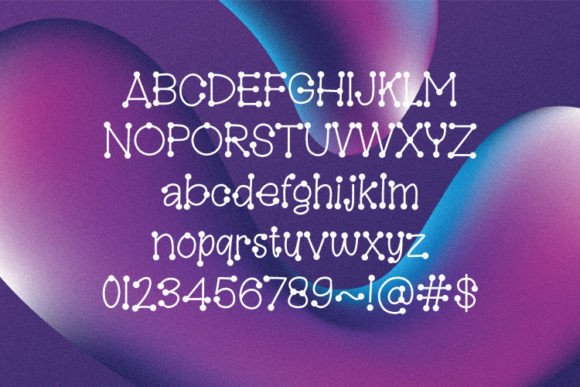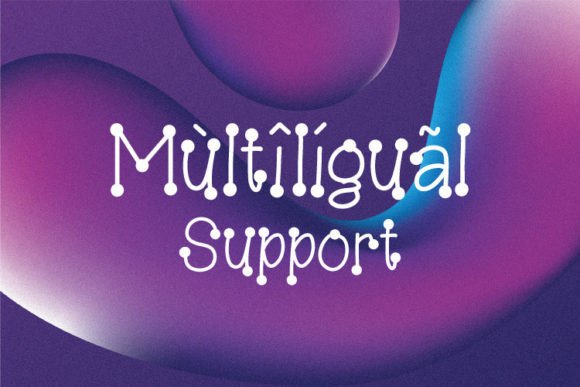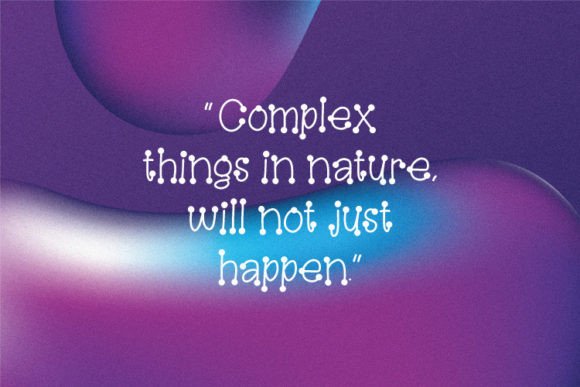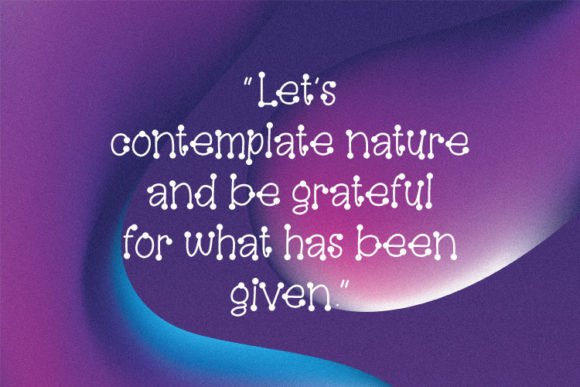
The Dotline Font: A Design Game-Changer with a Personal Touch
I’ll never forget the time I was working on a project for a client who wanted a font that would add a personal touch to their branding. I had spent hours scouring the internet for the perfect font, but nothing seemed quite right. That was until I stumbled upon the Dotline font. Its unique dot effect and authentic vibe instantly caught my attention, and I knew I had found the one. In this article, I’ll share my experience with the Dotline font, its features, and how to make the most of it in your designs.
My Honest Review of Dotline Font
- ✨ The dot effect gives it a unique and eye-catching appearance
- ✅ Authentic vibe that adds a personal touch to designs
- 💡 Realistic fluid feel that makes it perfect for a variety of design projects
- 🎨 Highly versatile and can be used for both digital and print designs
While I love the Dotline font, there are a few things to keep in mind:
- 🤔 The dot effect can be a bit overwhelming if not used correctly
- ⚠️ Limited use of uppercase letters, but this can also be seen as a stylistic choice
The Story Behind Dotline Font
The Dotline font was designed by a team of creatives who wanted to create a font that would add a personal touch to designs. Inspired by the imperfections of hand-drawn text, they created a font that would mimic the look of a dotted line. The result is a font that’s both unique and versatile, perfect for a variety of design projects.
| Font Name | Dotline Font |
| Author | pustudio |
| What is the Dotline font best used for? | The Dotline font is best used for designs that require a personal touch, such as branding, packaging, and advertising. |
| Is the Dotline font suitable for body text? | While the Dotline font can be used for body text, it’s best suited for headings and titles due to its unique dot effect. |